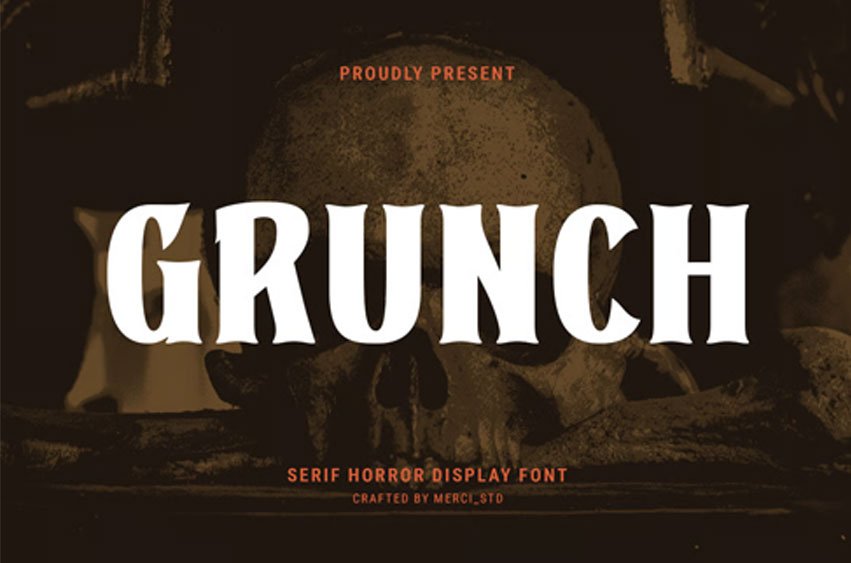
Grunch Font is a bold serif horror display font with a dark vintage atmosphere and strong dramatic character. Designed with sharp edges and classic horror-inspired details, this font is perfect for posters, branding, book covers, Halloween themes, movie titles, gothic projects, and spooky visual designs.
Grunch delivers a powerful and mysterious impression for standout typography.